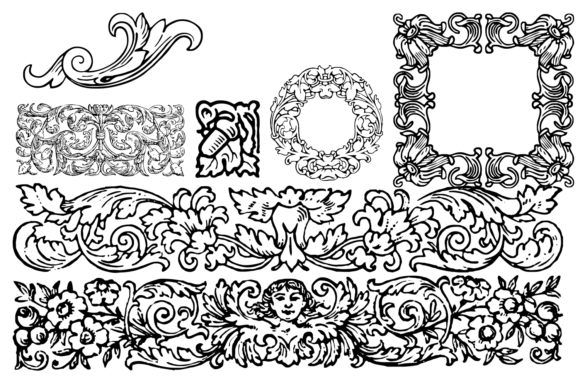
Welcome to the realm of Mortised Vignettes, a treasure trove of classic decorative elements, meticulously researched and crafted from the rich heritage of Victorian typography. Embark on a creative journey with this exceptional dingbats font family, designed to ignite your imagination and transform your design projects into captivating masterpieces.
With Mortised Vignettes, you'll unveil an extensive collection of 136 exquisite ornaments, each one a testament to the artistry and elegance of a bygone era. These intricate designs serve as the perfect building blocks for crafting stunning frames, borders, headpieces, tailpieces, fleurons, and tags that exude a classic vintage charm.
Unleash your creativity and bring a touch of timeless sophistication to your wood signs, invitations, brochures, posters, and more. Let Mortised Vignettes elevate your designs with its intricate details, ornamental flourishes, and a touch of nostalgia that's sure to captivate your audience.
Immerse yourself in the boundless possibilities of Mortised Vignettes. Its versatility extends far beyond the confines of wood signs, making it the perfect font for a wide range of projects. From digital designs to print media, this font family effortlessly adapts, adding a touch of timeless elegance wherever it's applied.
Picture the perfect wedding invitation adorned with intricate borders and flourishing headpieces, each element rendered with the utmost precision and detail. Imagine a poster that transports you to a bygone era, its captivating typography evoking a sense of wonder and nostalgia. Mortised Vignettes is the key to unlocking these creative possibilities and leaving an indelible mark on your audience.
Join the ranks of satisfied designers who have discovered the magic of Mortised Vignettes. Experience the joy of creating designs that stand out from the crowd, designs that speak to the heart and leave a lasting impression. Let this exceptional font family be your creative companion, guiding you towards design excellence.